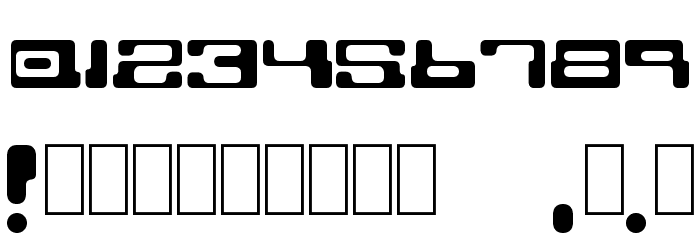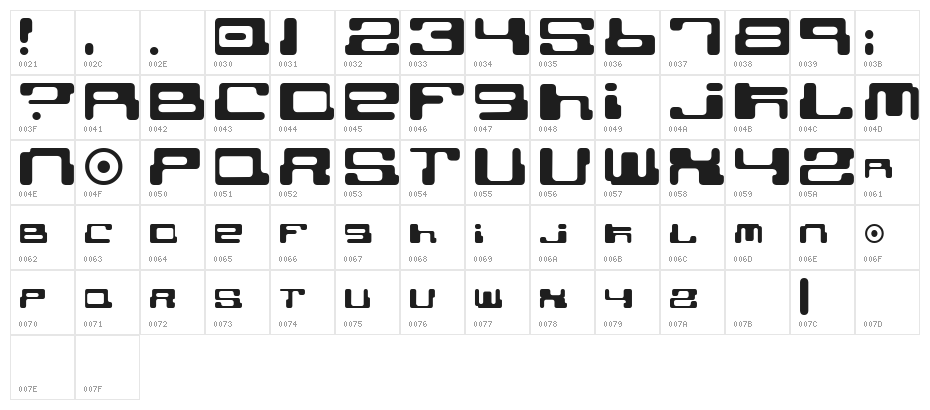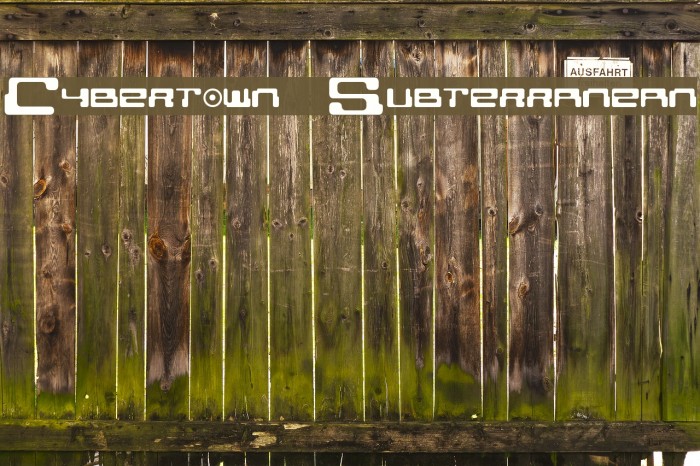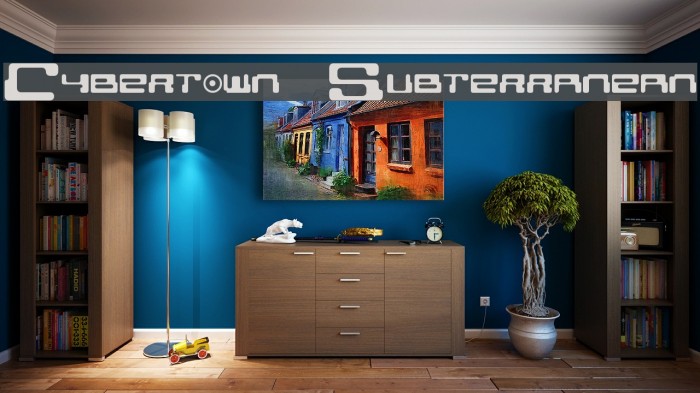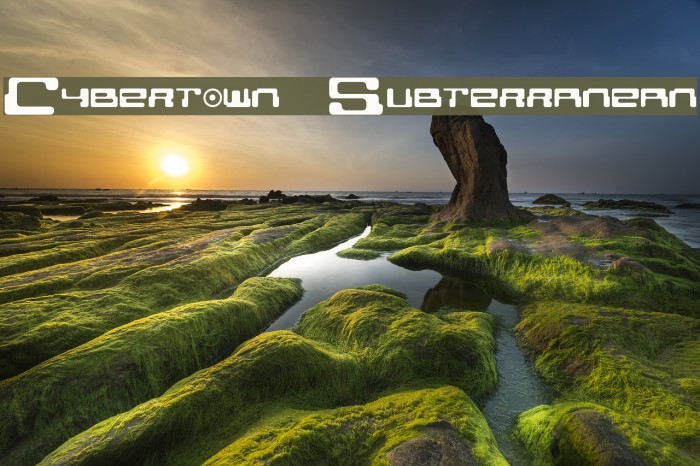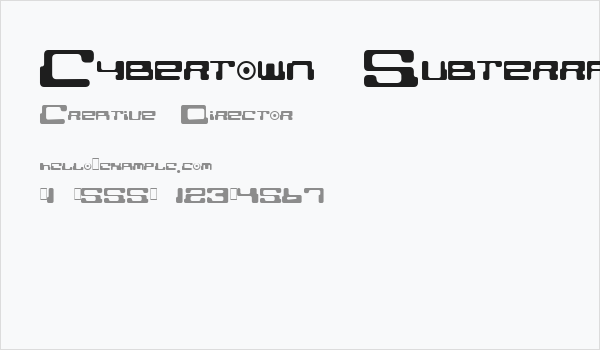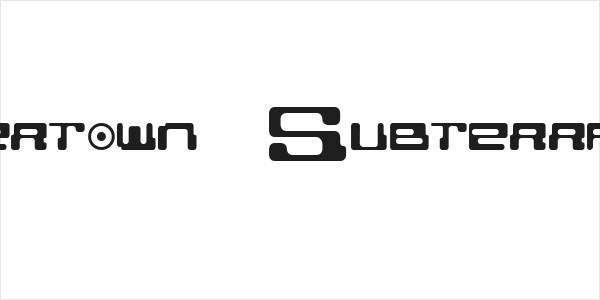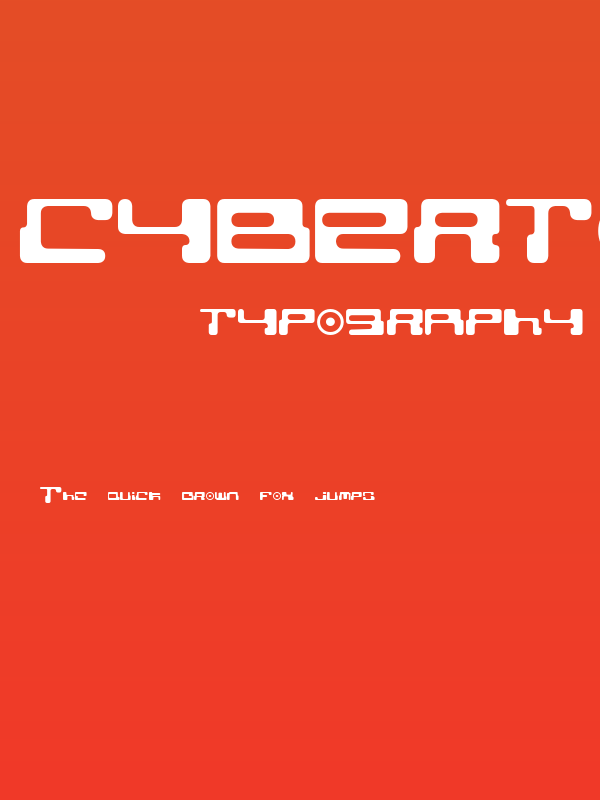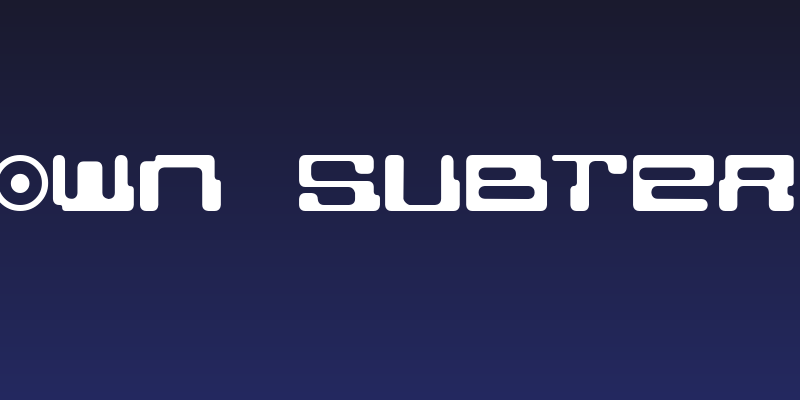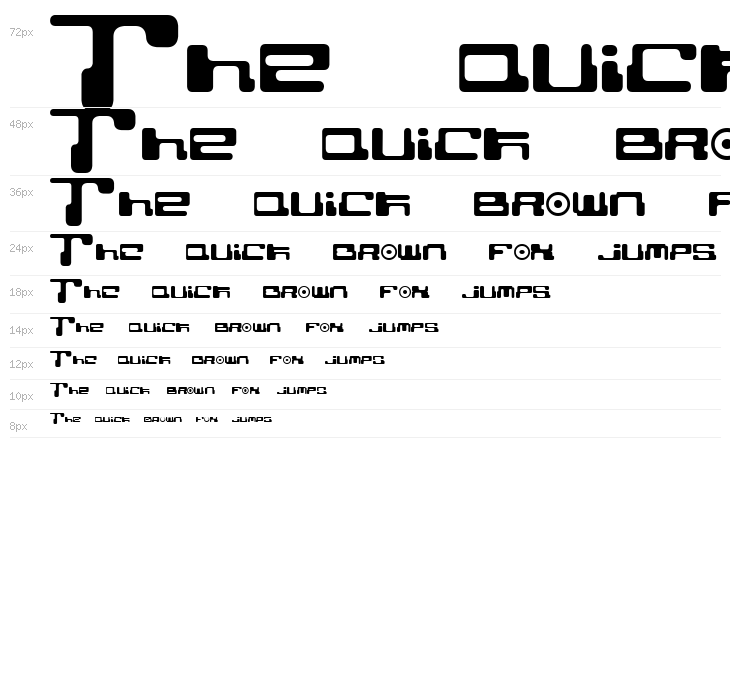
Cybertown Subterranean Font
Cybertown Subterranean Description
This font features a futuristic and digital aesthetic, characterized by its geometric and modular letterforms. The characters are constructed with a combination of rounded and angular elements, creating a unique and tech-inspired appearance. The uppercase and lowercase letters maintain a consistent style, with uniform stroke widths and a balanced structure. The numerals and special characters follow the same design principles, ensuring a cohesive look across all glyphs. This font is ideal for projects that require a modern and innovative touch, such as technology branding, digital interfaces, or sci-fi themed designs.
| Proposed Projects | Ideal for technology branding, digital interfaces, sci-fi themes, and modern design projects. |